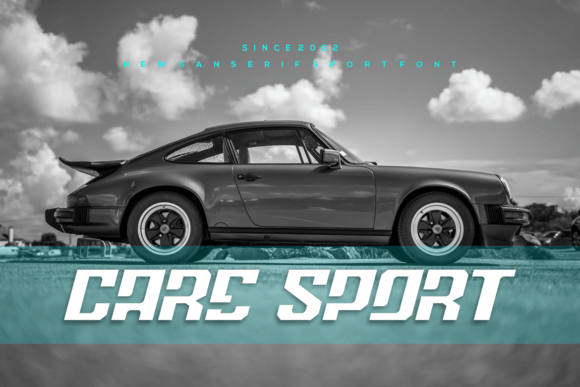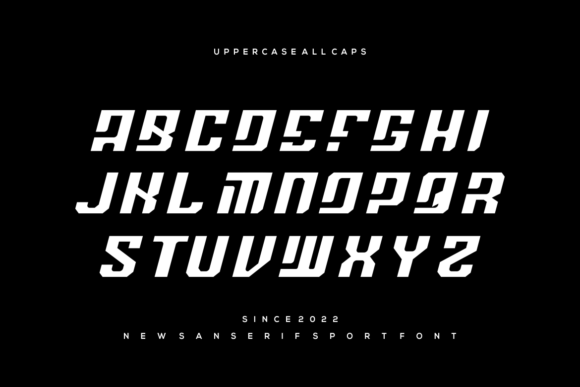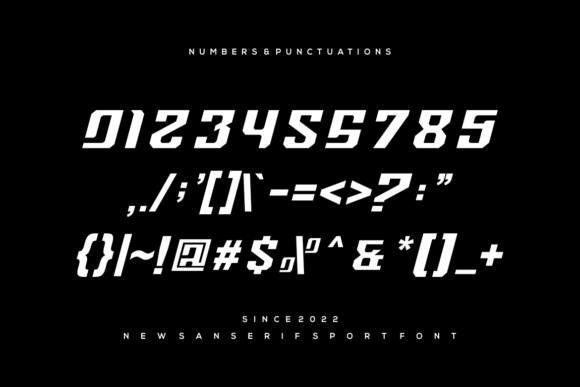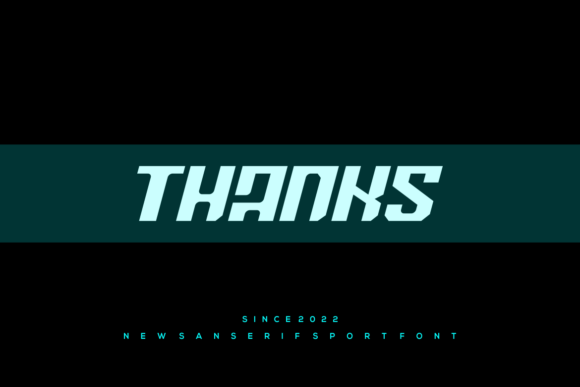
Introduction to Dagpro Font
Have you ever been stuck in front of your computer, staring at a blank canvas, trying to bring your creative project to life? The blank page can be intimidating, but what if you had the perfect design resource to spark your imagination?
Enter the Dagpro Font, a cool and modern display font that’s sure to elevate your creative ideas and make them stand out. With its sleek and sophisticated design, this high-quality font is perfect for designers who want to add a touch of elegance to their work. Whether you’re working on a logo, a poster, or a social media graphic, the Dagpro Font is the perfect addition to take your project to the next level.
Key Features of Dagpro Font
- One of its unique characteristics is the ability to create visually striking contrast when paired with solid-colored backgrounds.
- This font is perfect for designers seeking a bold, eye-catching aesthetic for their creative projects.
Honest Review: Dagpro Font
I recently came across the Dagpro Font and I must say it’s been a game-changer for my design projects. This high-quality font has been a valuable addition to my design resource library, and I’ve been using it extensively for my creative projects.
- ✨ The font’s modern and clean design makes it perfect for a wide range of applications, from headings to body text.
- ✨ The transparent background option allows for seamless integration with different design elements and backgrounds.
- ⚠️ The font may not be suitable for very small text sizes, as it can become difficult to read.
- ⚠️ The font’s versatility is somewhat limited, making it best suited for specific design niches.
Overall, I’m extremely satisfied with the Dagpro Font. Its high quality and versatility make it a valuable addition to any designer’s library. I highly recommend it for any design project, especially those that require a modern and clean aesthetic.
Getting the Most Out of Dagpro Font
To get the most out of Dagpro Font, use it in combination with other design resources and experiment with different colors and backgrounds.
The Dagpro Font is perfect for:
- Creating eye-catching graphics and posters
- Designing websites and landing pages
- Developing marketing materials and brochures